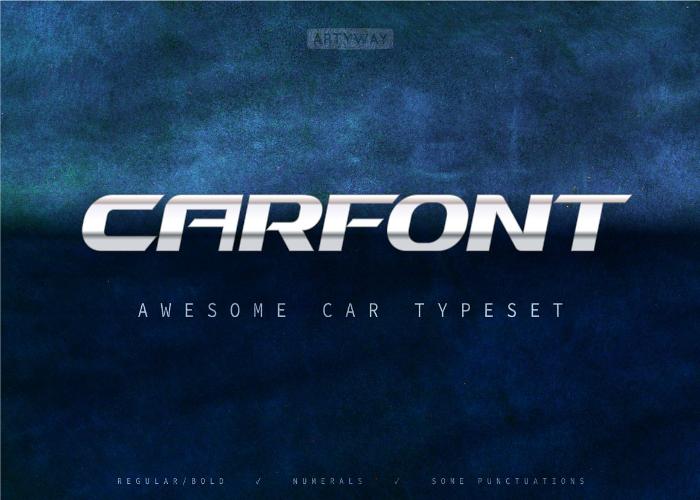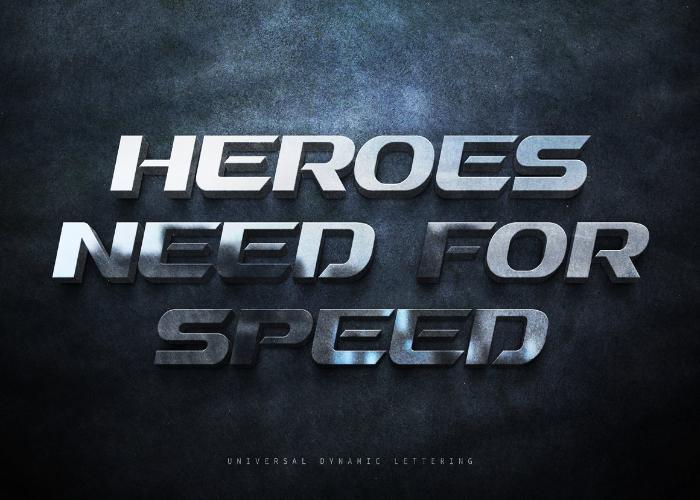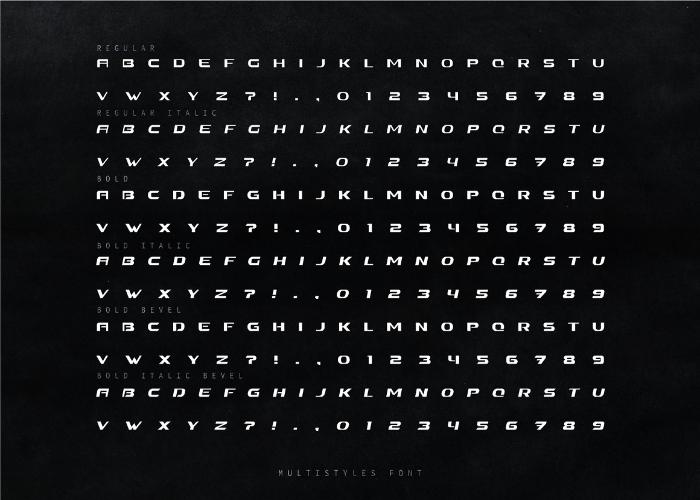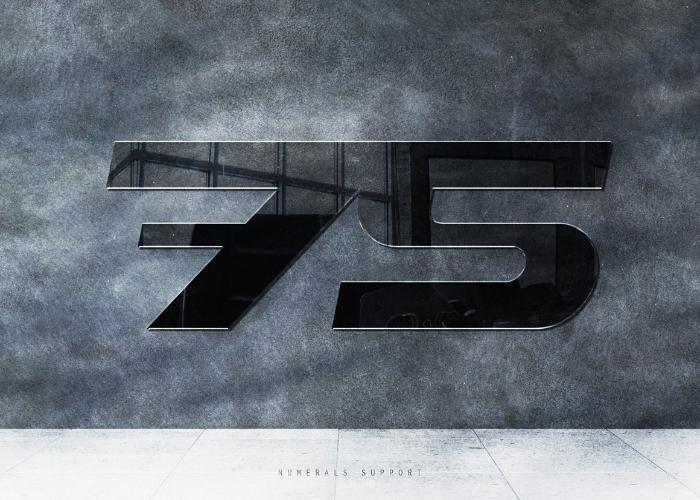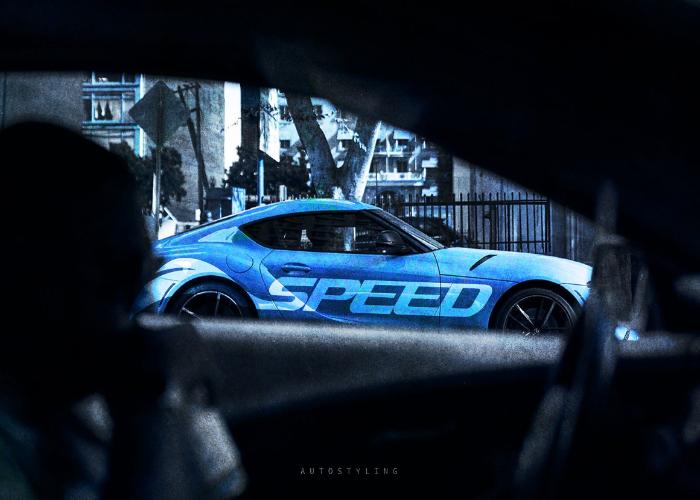
Awesome Car Font
Mesmerized by the fonts used in the legendary automotive brands like the Ferrari Enzo to the Bugatti Chiron? Then we have the perfect freebie for you. Presenting you a powerful, dynamic, and confident typeset – Carfont!
Car Font is stylish and universal it is designed for automotive and it also easily holds attention.